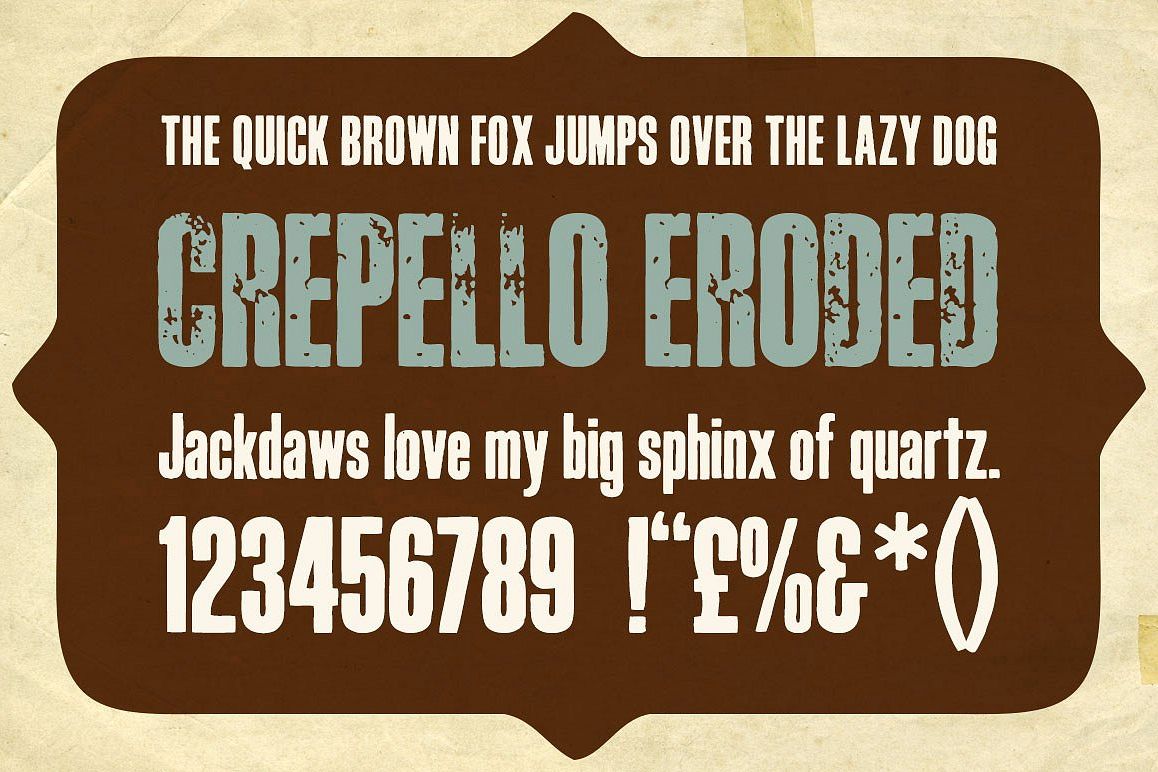
Created By Niall Kitching
Crepello
Crepello-Eroded
Crepello-Regular
A Victorian style Typeface based on an old wood cut. Comes with upper and lower cases, numerals. Solid and distressed versions 2 fonts for the price of one!.